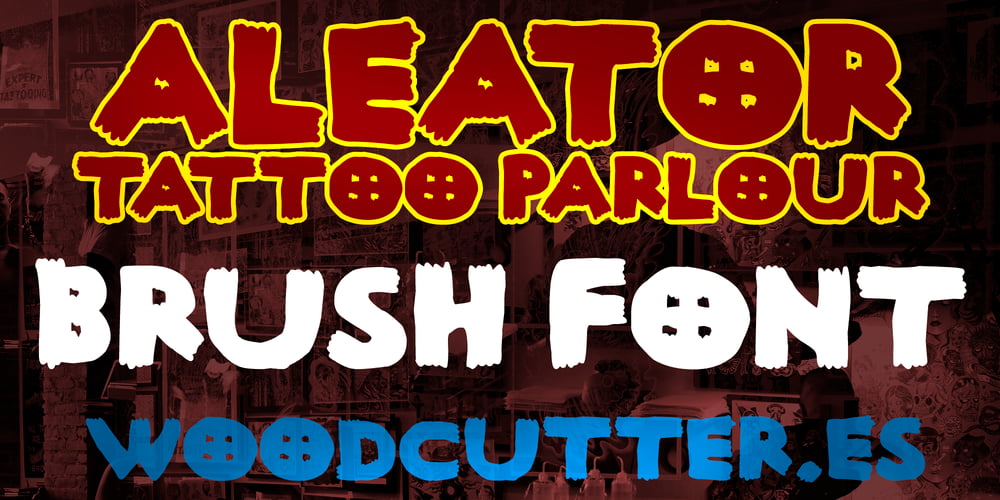
Aleator Tattoo Parlour
Aleator Tattoo Parlour font
Aleator Tattoo Parlour Font Family was designed by Jordi Manero and published by Woodcutter. Aleator Tattoo Parlour contains 1 styles and family package options. “Aleator Tattoo Parlour” is a typeface featuring uppercase letters with accents, characterized by an imperfect stroke that blends gothic style with a modern twist. Ideal for designs seeking a rebellious and distinctive flair, this font evokes the aesthetic of classic tattoos with a contemporary edge. Perfect for logos, posters, and any project requiring a bold and expressive typeface. “Aleator Tattoo Parlour” brings a sense of authenticity and street art, capturing the essence of tattoo parlours and their unique atmosphere. –Uppercase